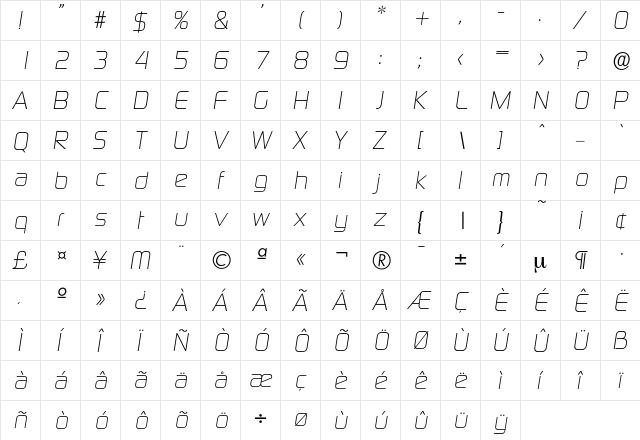
Digital-LightIta Regular
Design Context for Digital-LightIta Typeface
Digital-LightIta has a distinctly futuristic character, with geometric precision and clean angles that feel at home in technology, gaming, and sci-fi contexts. The delicate stroke weight brings airiness and refinement to layouts.
Pro Tip: Try Digital-LightIta with generous letter-spacing in UI labels and navigation — the geometric forms benefit from room to breathe.